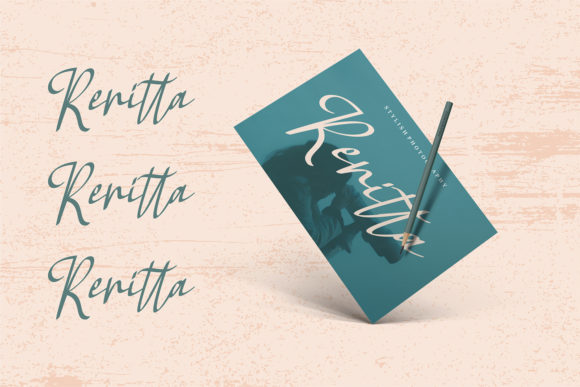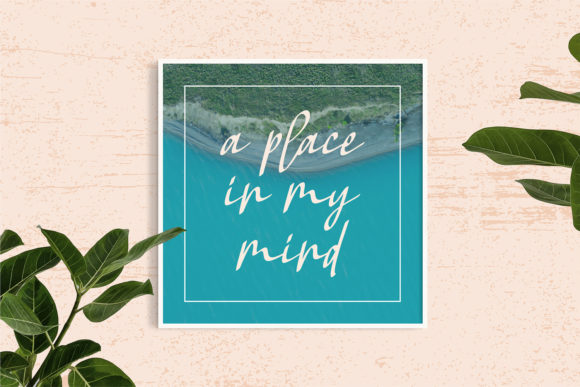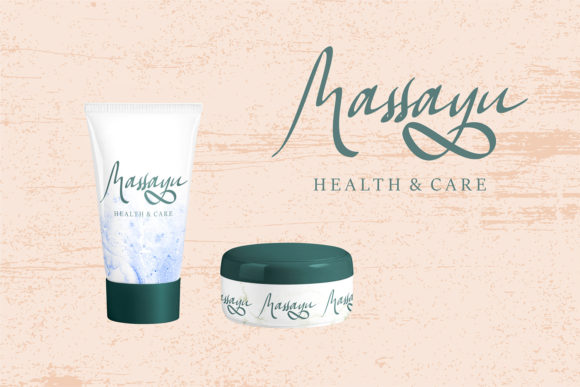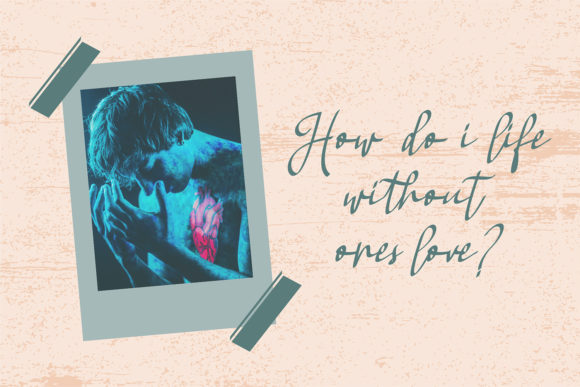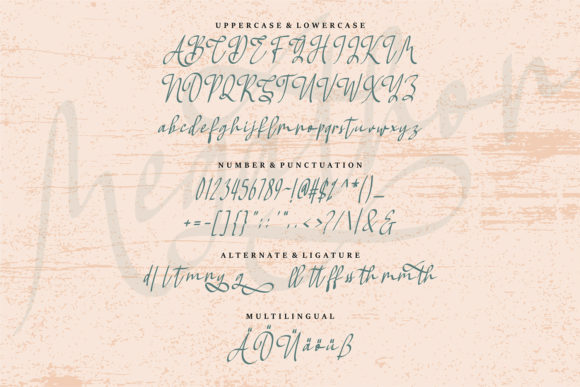
Introduction to Megathon Font
As you sit down to start a new creative project, the right font can make all the difference. You envision the perfect design, but something’s missing. That’s when you stumble upon a hidden gem – a font that speaks to the essence of your project. For many designers, that gem is the Megathon Font. This sweet and delicate handwritten font has the power to elevate any design, adding a touch of romance and whimsy that’s hard to resist.
Whether you’re crafting wedding invitations, designing a card for a loved one, or working on any other project that requires a personal touch, the Megathon Font is an invaluable resource. With its dainty and joyful feel, it’s the perfect choice for adding a high-quality, transparent background to your design. And the best part? It’s available for free download, making it a must-have in any designer’s toolkit.
Key Features of Megathon Font
- High-quality design resource ideal for creative projects, with a transparent background for seamless integration.
- Features a unique, modern design that can be used for a variety of purposes, from digital art to print media.
- Designed to be highly legible, with clear lines and a clean aesthetic that makes it perfect for body text and headings.
- Perfect for designers and artists looking for a free, high-quality design resource to enhance their creative project.
Honest Review: Megathon Font
As a designer, I’m always on the lookout for high-quality design resources that can elevate my creative projects. Recently, I stumbled upon the Megathon Font, and I must say, it’s been a game-changer.
Here are some things that work well: ✨ The font is incredibly versatile, suitable for a wide range of design applications, from logos to brochures. The high-quality design ensures that the text looks crisp and clear, even when used in large sizes. Additionally, the font is available for free download, making it an excellent design resource for those on a budget.
- ✨ Versatile and suitable for various design applications
However, there are some limitations: ⚠️ The font only comes in a transparent background, which can make it challenging to use in certain design scenarios. Additionally, the font family is relatively small, so you may need to use multiple font sizes to achieve the desired effect.
Overall, I’m impressed with the Megathon Font. Its high-quality design and versatility make it an excellent addition to any designer’s toolkit. While it has some limitations, I believe it’s a worthwhile design resource that can help elevate your creative projects.
Designing with Megathon Font
The Megathon Font is a high-quality design resource perfect for any creative project. With its transparent background, it can be easily used in various design applications.
Getting the Most Out of Megathon Font
To get the most out of the Megathon Font, experiment with different font sizes, colors, and combinations. This will help you achieve a unique and professional look for your design project.
The Megathon Font is commonly used in logo designs, infographics, and presentations. Its high-quality design and transparent background make it an ideal choice for any creative project.
Q: Does the Megathon Font have a transparent background?
Yes, the Megathon Font has a transparent background, making it perfect for use on images or backgrounds with complex designs. This feature is especially useful for designers who want to create visually appealing and professional-looking designs.